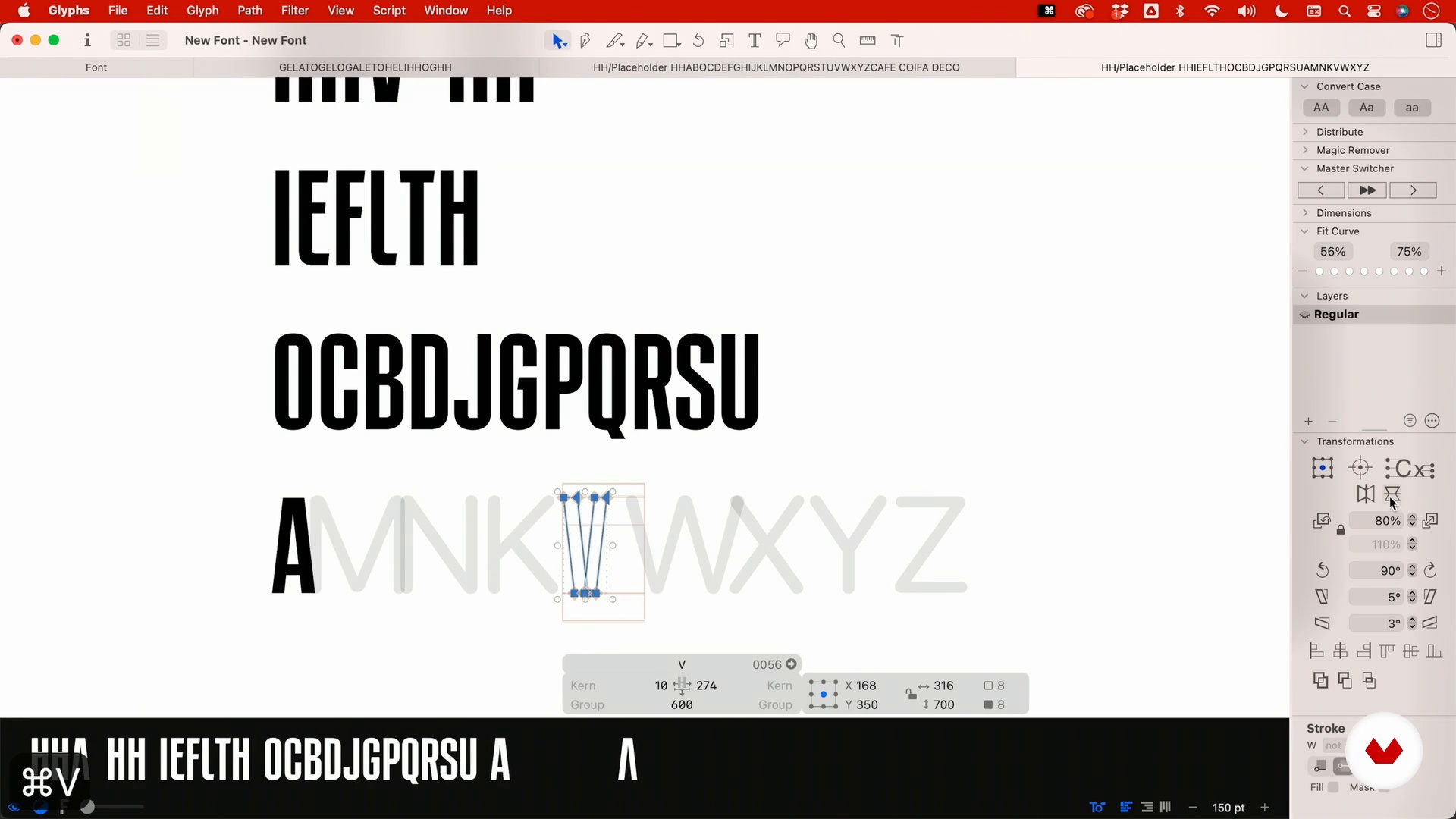
Font vectorization 2
About the video: Font vectorization 2
“In this second part of the class, we will complete the alphabet and get everything ready to vectorize the other characters in the font.”
In this video lesson Plau addresses the topic: Font vectorization 2, which is part of the Domestika online course: Advanced Brand Typography. Discover how to design your own typography and create a unique brand with our step-by-step course. .
“To make the D. i start with a C. Paste it here. Now I'll proceed with this step: take this section. this curve. and align it downward. Repeat the same action on the top. Align it upwards. I can delete these points here. these leftover renders. However. he added an extra part that I don't need anymore. So. i can just move it upwards and adjust accordingly. I choose this 20 by 20 section. applying the same roundness here. I will then select this filter point. ensuring consistency in the design's curvature. Apply 20-point rounded corners with necessary visual corrections. Alright. So. one side...”
Carlos Mignot and Rodrigo Saiani are two passionate designers from Estúdio Plau, specializing in typography. Carlos, originally from Campos dos Goytacazes, began his career in engineering, but his creative streak led him to graphic design. In turn, Rodrigo, born in SJ dos Campos and based in Rio since a young age, discovered his passion for design when experiencing the power of animation with Flash macromedia.
Together, they form a talented team that has created popular typography used by millions of people around the world. His work has been recognized with awards at important events and honors, such as Cannes, D&AD Awards and BDA. Furthermore, they share the vision of making typography as popular as music, inspiring people of all tastes and making typographic design a democratic and admired discipline.
With Carlos Mignot and Rodrigo Saiani as your guides, you will be in the hands of experts who will teach you the secrets of pop typographic design and inspire you to explore new forms of expression through letters.